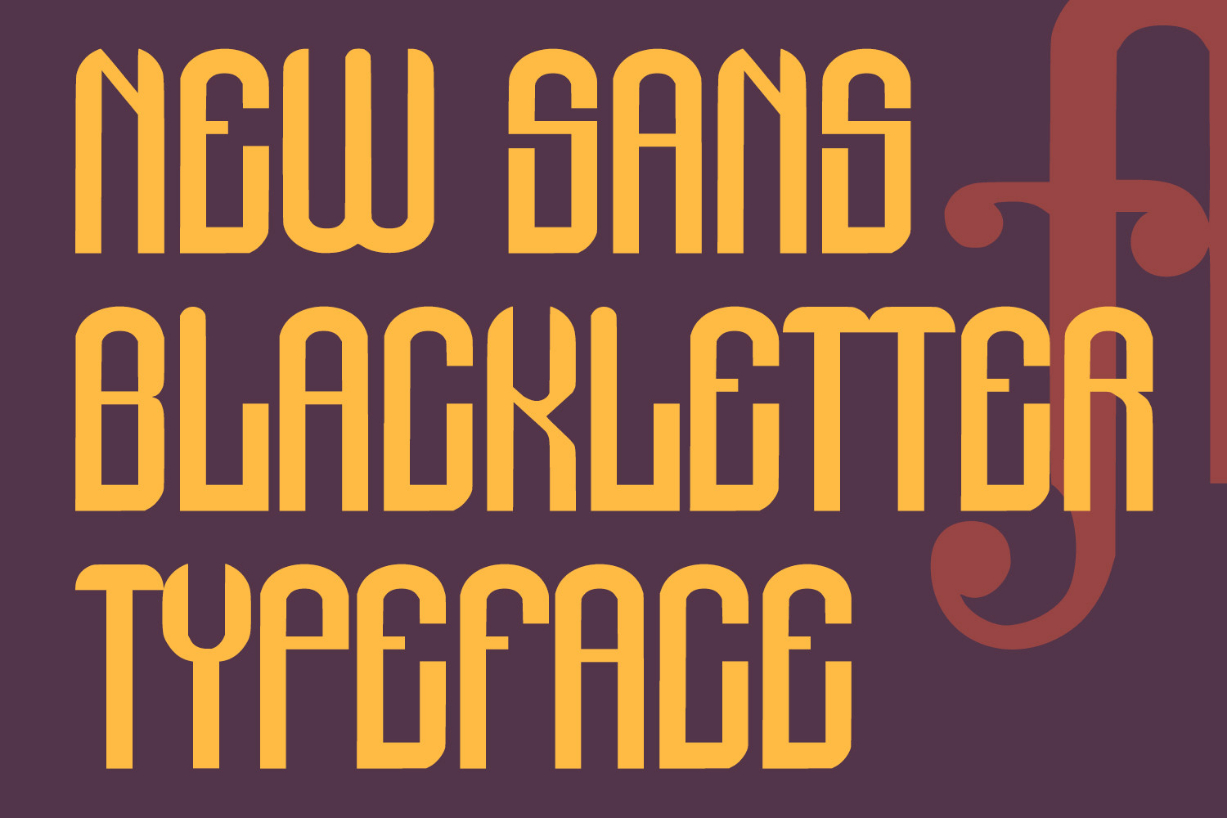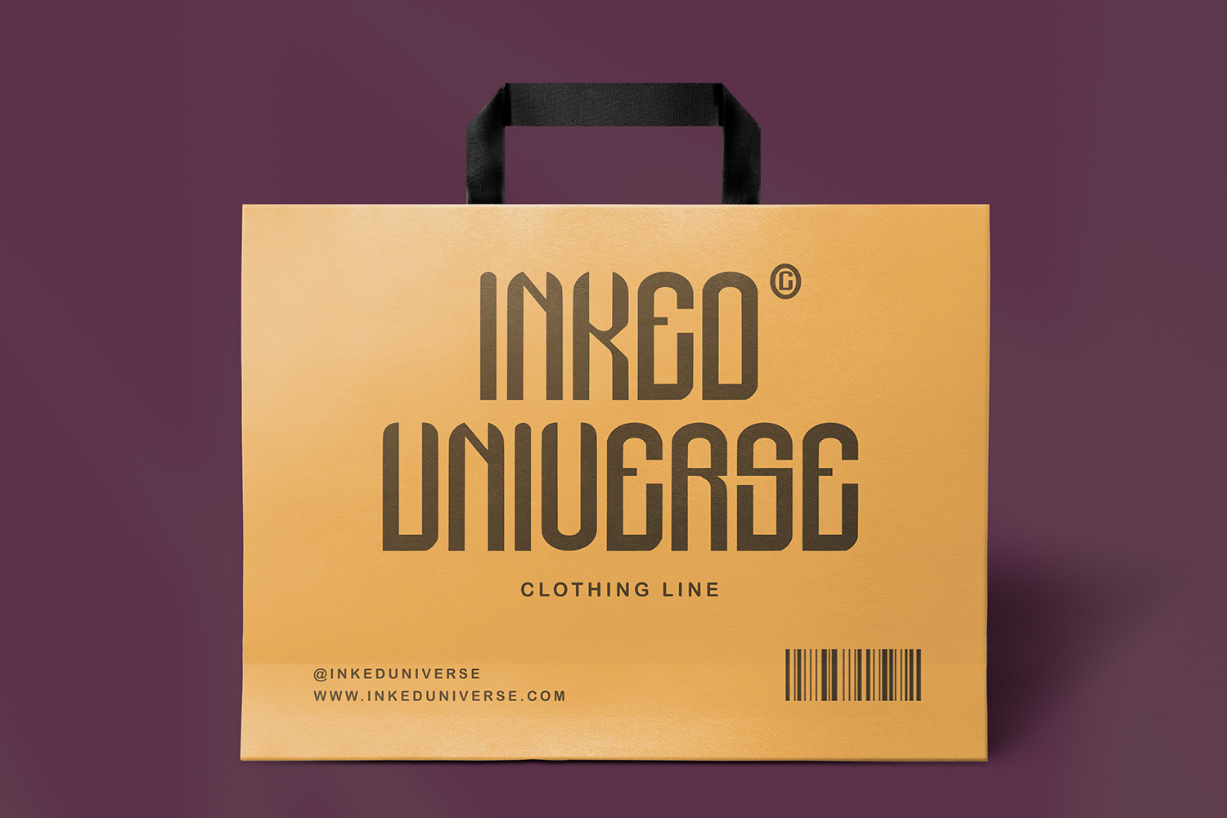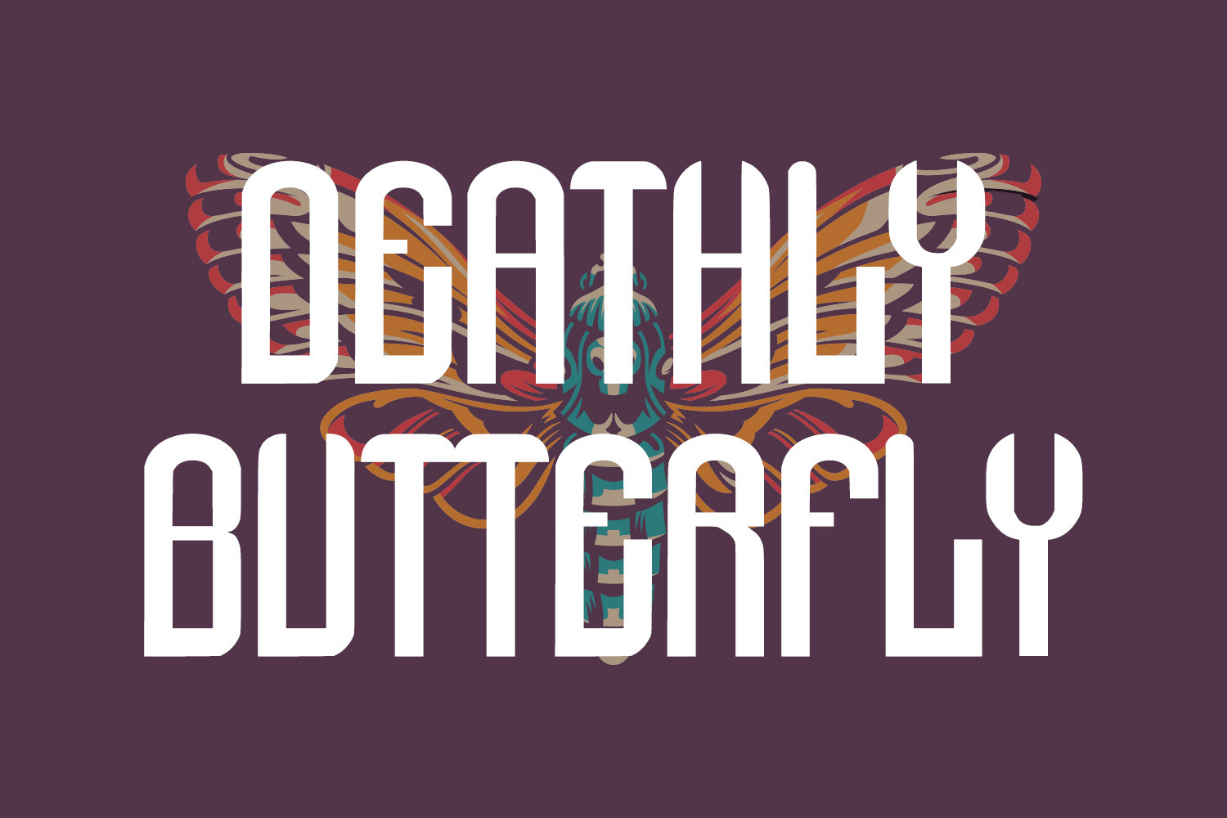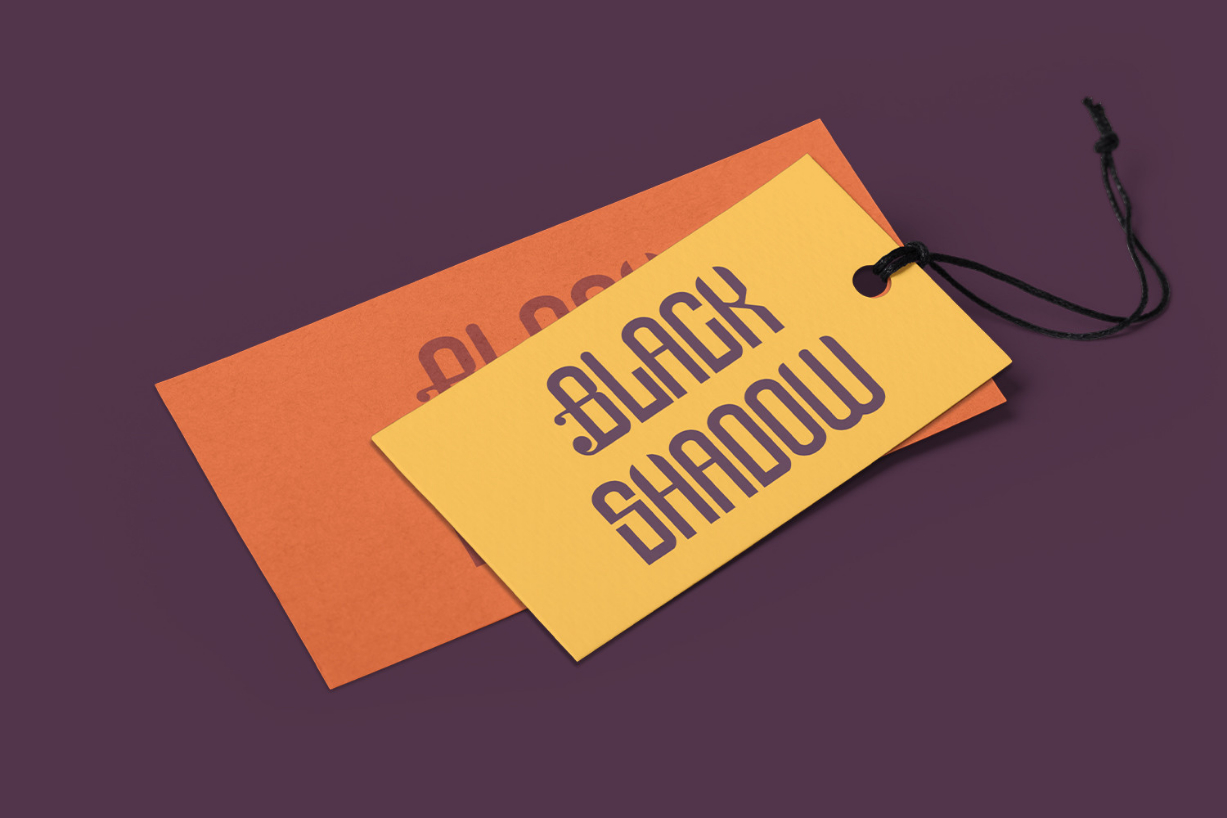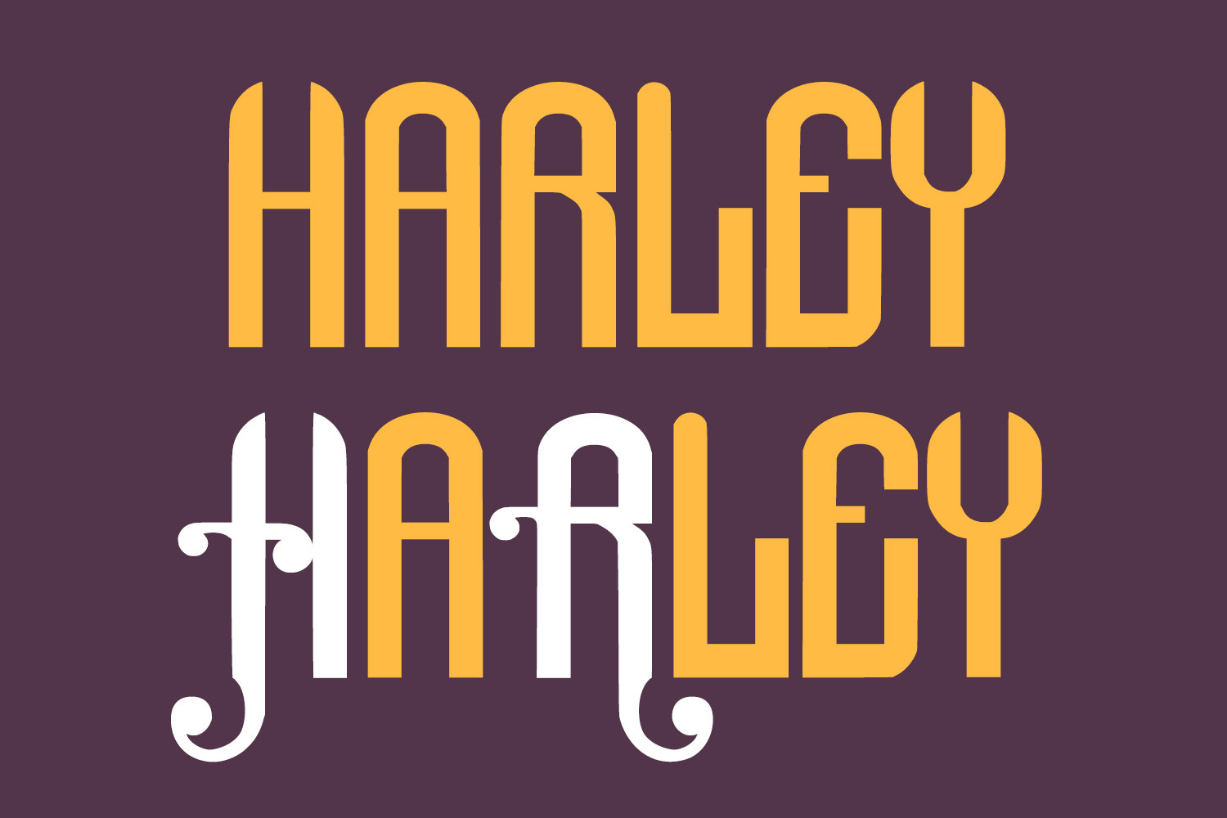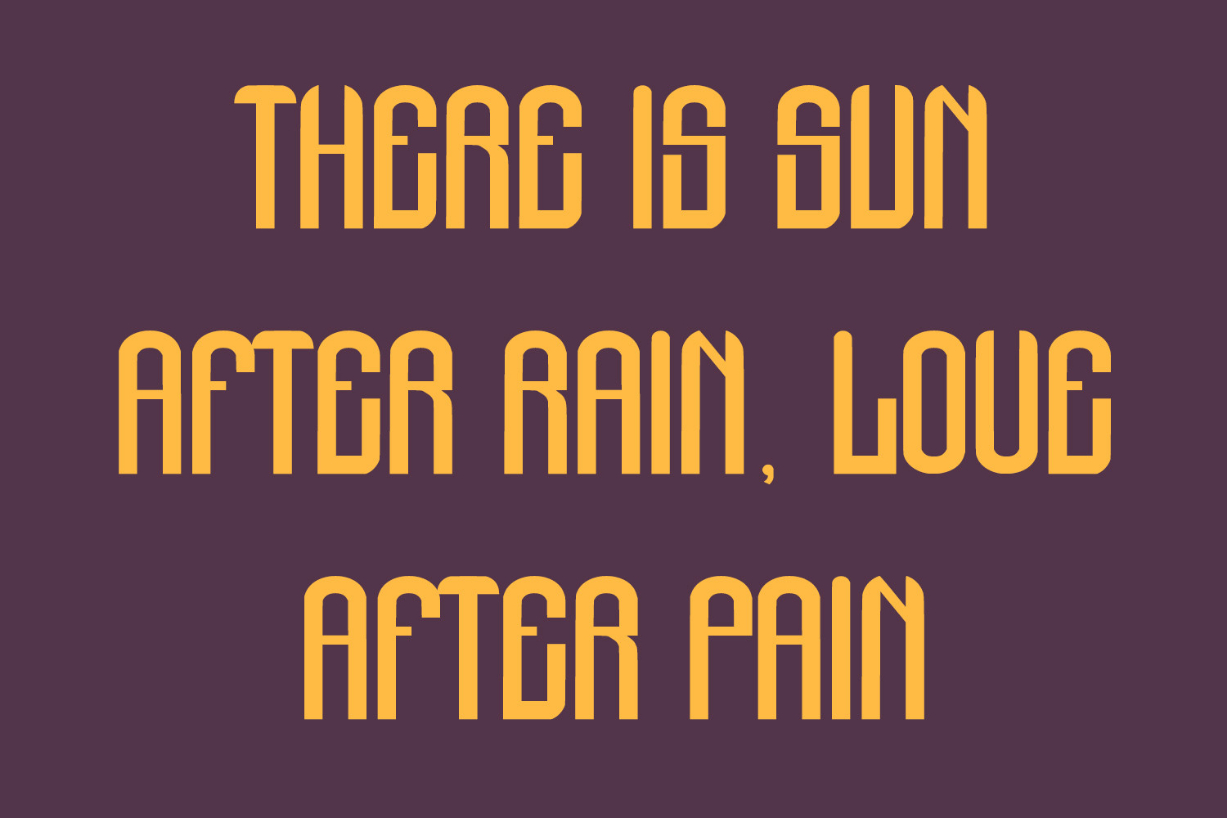
Allaize Font
About Allaize Font
Allaize is a modern and bold blackletter font that combines traditional Germanic script with a contemporary edge. Its sharp angles and strong lines create a powerful and assertive look that is perfect for branding, packaging, and designs that require a bold statement. Blackout adds a sophisticated and modern feel to any project.